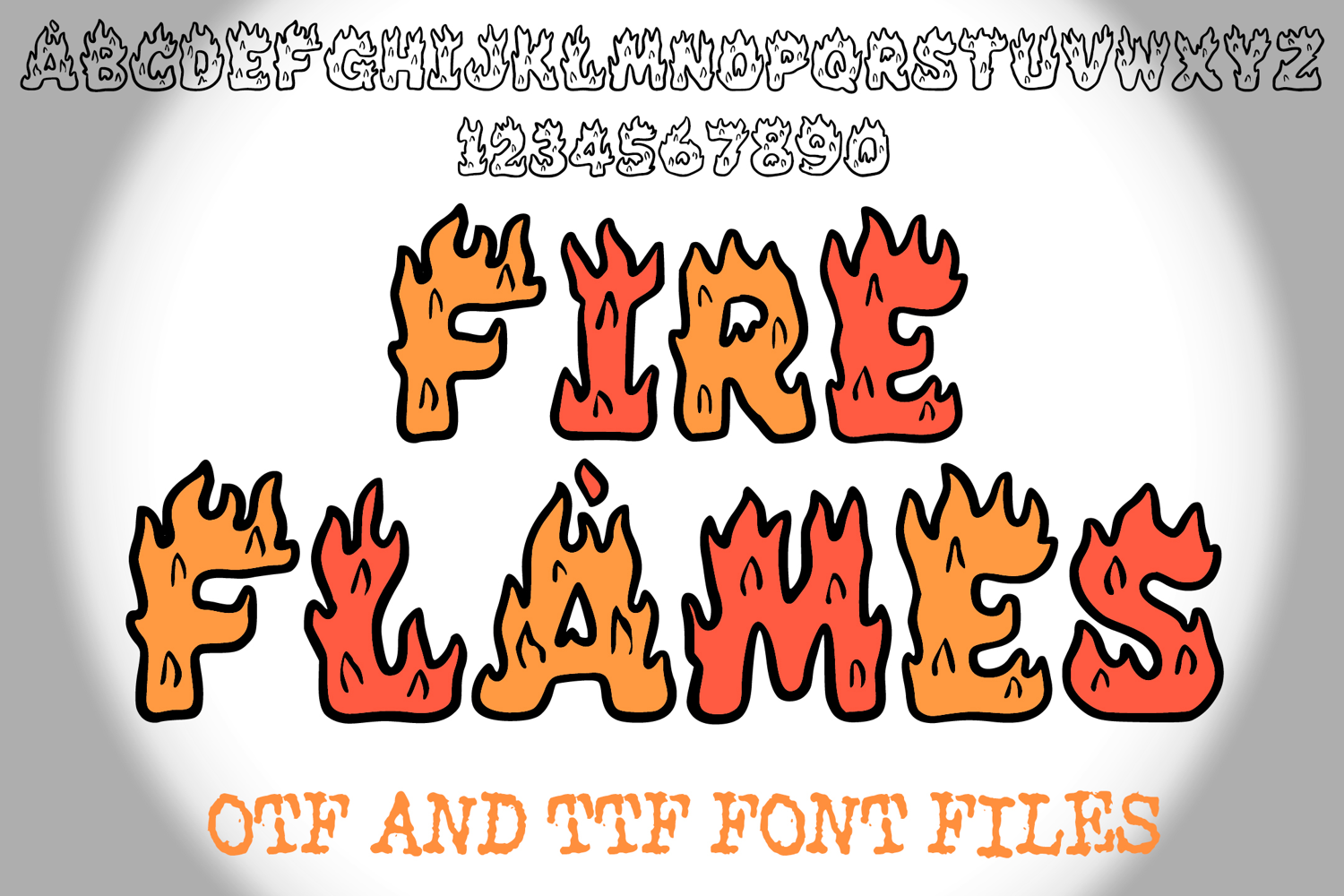
Fire Flames Lettering ABC Text Font Alphabet OTF Type Illustration
A cartoon style font where you can create your own words and colour them to your vision!